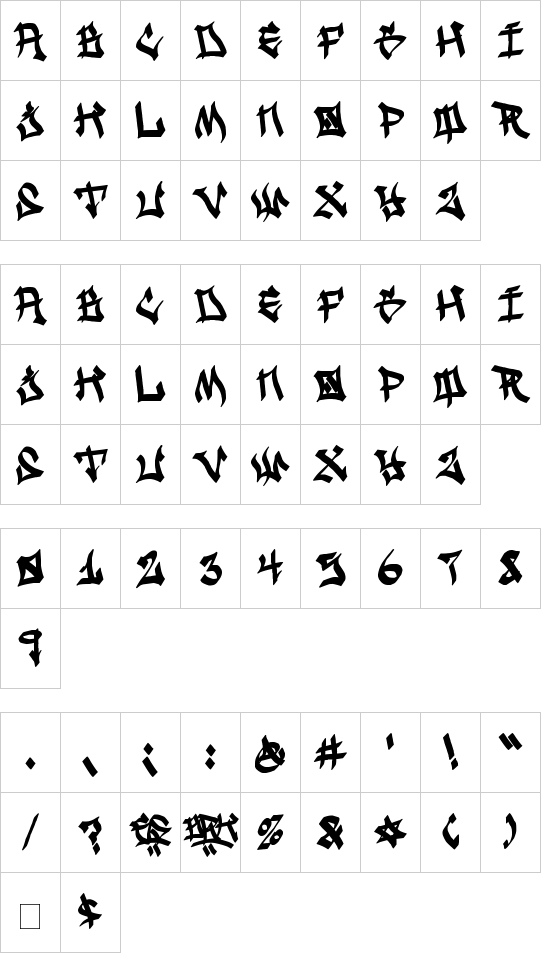
Ghetto Streetz
About Ghetto Streetz
Ghetto Streetz is a calligraphic face with sharp, tattoo-inspired strokes and a gritty urban attitude. The letters carry the pointed, dramatic contrast of script tattoo lettering, their tails and spikes giving a hard street edge. Its mood is bold and raw, drawn from ink and concrete.
It suits hip-hop album covers, streetwear graphics, tattoo branding, and bold posters that want a street-styled edge. Ghetto Streetz is free to download as a TrueType file, and you can preview your own text to see how the sharp calligraphic strokes read across a name or title before placing it in a design.